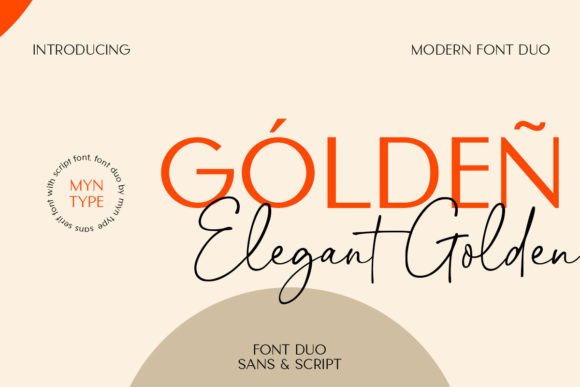
Elegant Golden – Duo Font: Elevate Your Designs with Timeless Elegance
In the world of typography, finding the perfect font pairing can be a daunting task. However, with Elegant Golden – Duo Font, you can add a touch of sophistication and elegance to your designs. This versatile font combination brings together a sans-serif font and a script font, allowing you to create stunning visual content for various applications.
The Power of Font Pairing: Elegant Golden – Duo Font
Elegant Golden is a thoughtfully crafted combination of two complementary typefaces designed to work together harmoniously. The sans-serif font provides a clean and modern look, while the script font adds a touch of elegance and sophistication. This font pairing offers the perfect balance of simplicity and luxury, making it ideal for a wide range of design applications.
Key Features of Elegant Golden – Duo Font
- Versatile font pairing: The combination of a sans-serif font and a script font offers endless design possibilities.
- High-quality typography: Elegant Golden features clean lines, precise curves, and exceptional legibility.
- Wide range of applications: Suitable for branding, calligraphy logos, invitations, display products, wedding design, social media graphics, advertising, packaging, and more.
- Elegant and sophisticated: Adds a touch of luxury and refinement to your designs.
Design Applications for Elegant Golden – Duo Font
The versatility of Elegant Golden – Duo Font makes it an excellent choice for various design applications. Here are some ideas to get you started:
Branding and Logos
Create a lasting impression with a custom logo that exudes elegance and sophistication. The sans-serif font provides a solid foundation, while the script font adds a touch of personality and flair.
Invitations and Wedding Design
Make your special day unforgettable with beautifully designed invitations and wedding materials. Elegant Golden – Duo Font adds a touch of luxury and romance to your wedding stationery.
Social Media Graphics and Advertising
Elevate your social media presence with stunning graphics and advertisements. The font pairing’s versatility ensures that your message stands out in a crowded online space.
Packaging and Display Products
Make your products shine with elegant packaging and display materials. Elegant Golden – Duo Font is perfect for product labels, packaging, and point-of-sale displays.
Tips for Using Elegant Golden – Duo Font
To get the most out of Elegant Golden – Duo Font, follow these expert tips:
Balance and Contrast
Experiment with different font sizes, styles, and colors to create a harmonious balance between the sans-serif and script fonts.
Mix and Match
Don’t be afraid to mix and match the two fonts to create visual interest. Use the sans-serif font for body text and the script font for headings or accents.
Play with Colors
Elegant Golden – Duo Font looks stunning in a range of colors. Experiment with different color combinations to find the perfect fit for your brand or design.
Elegant Golden – Duo Font is a powerful tool for designers, offering a versatile and elegant font pairing that can elevate any design. With its wide range of applications, high-quality typography, and sophisticated style, this font combination is perfect for those seeking to add a touch of luxury and refinement to their work.